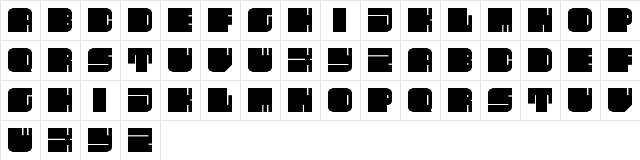
Fleshy Pad Regular Font Preview
Fleshy Pad Regular
| Designer | Jγon Garnica |
Design Context for Fleshy Pad Typeface
Fleshy Pad is a composed and adaptable typeface that performs quietly and consistently across a wide range of design contexts.